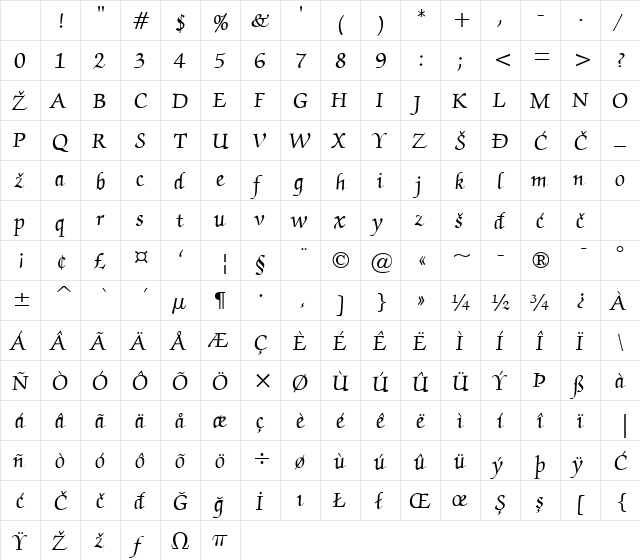
Zapf Chancery Regular
Zapf Chancery Family
Design Context for Zapf Chancery
Zapf Chancery is a composed and adaptable typeface that performs quietly and consistently across a wide range of design contexts.